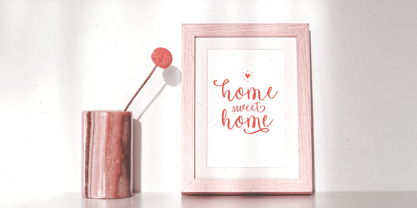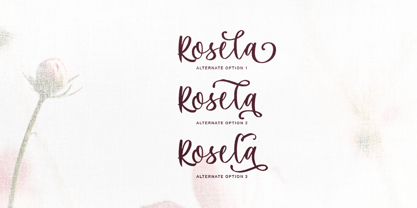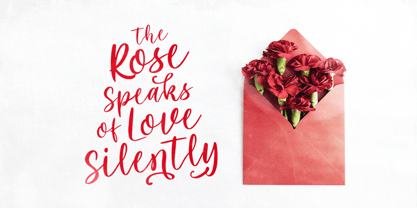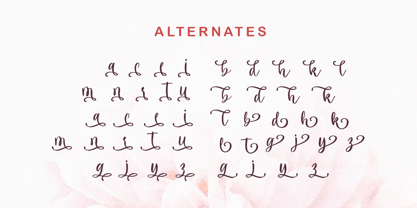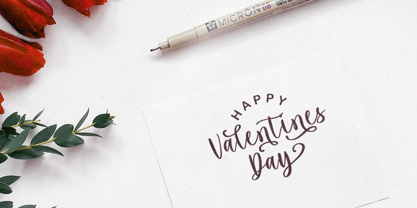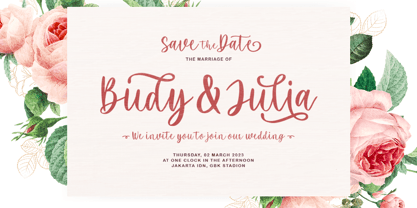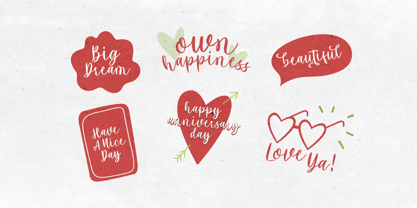
Maria Heart
La familia tipográfica Maria Heart fue diseñada por Sarid Ezra, Dzikrul Aulia y publicada por Bale Type. Maria Heart contiene 1 estilos.
Maria Heart is a modern script with lovely look that can make your design more sweet and romantic. With unique and lovely alternates, this font can make your project looks handcrafted and full of love. You can use Maria Heart font for branding, logo, wedding invitation, magazine, website, book, and more! Maria Heart also support Multi Language.